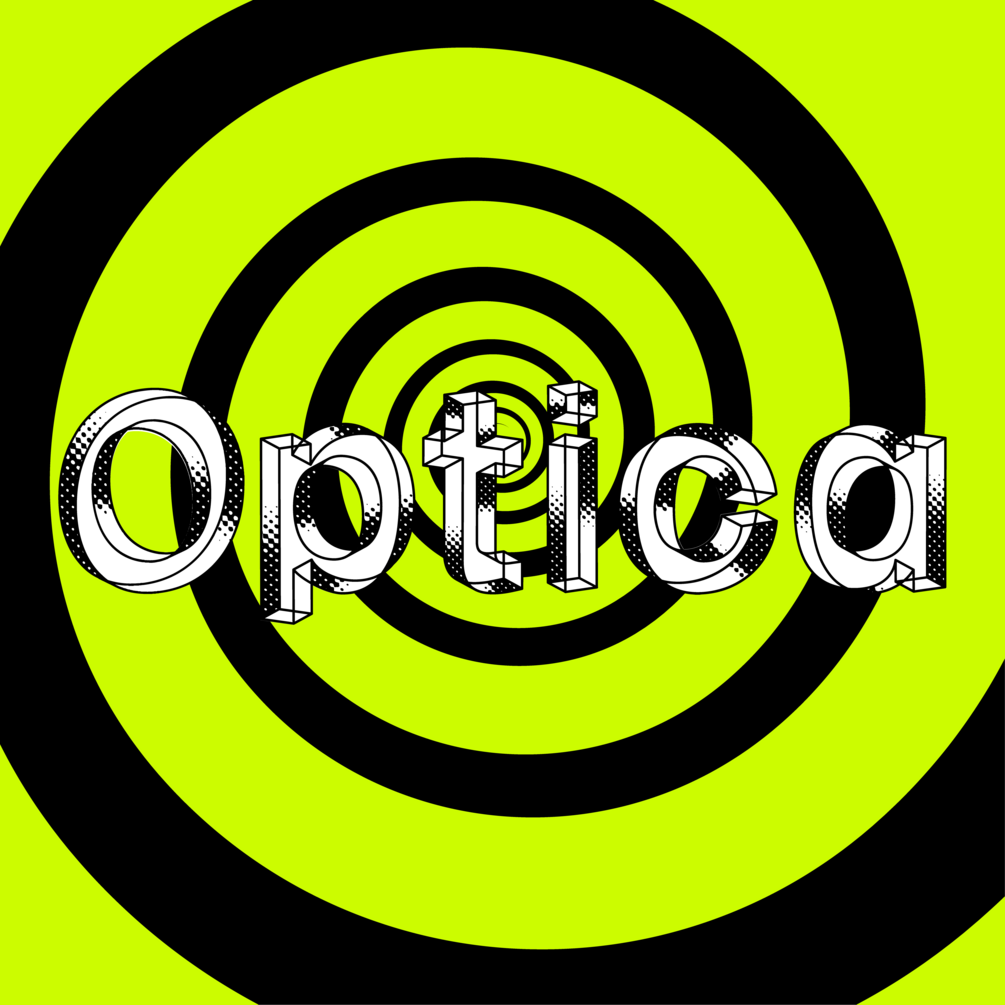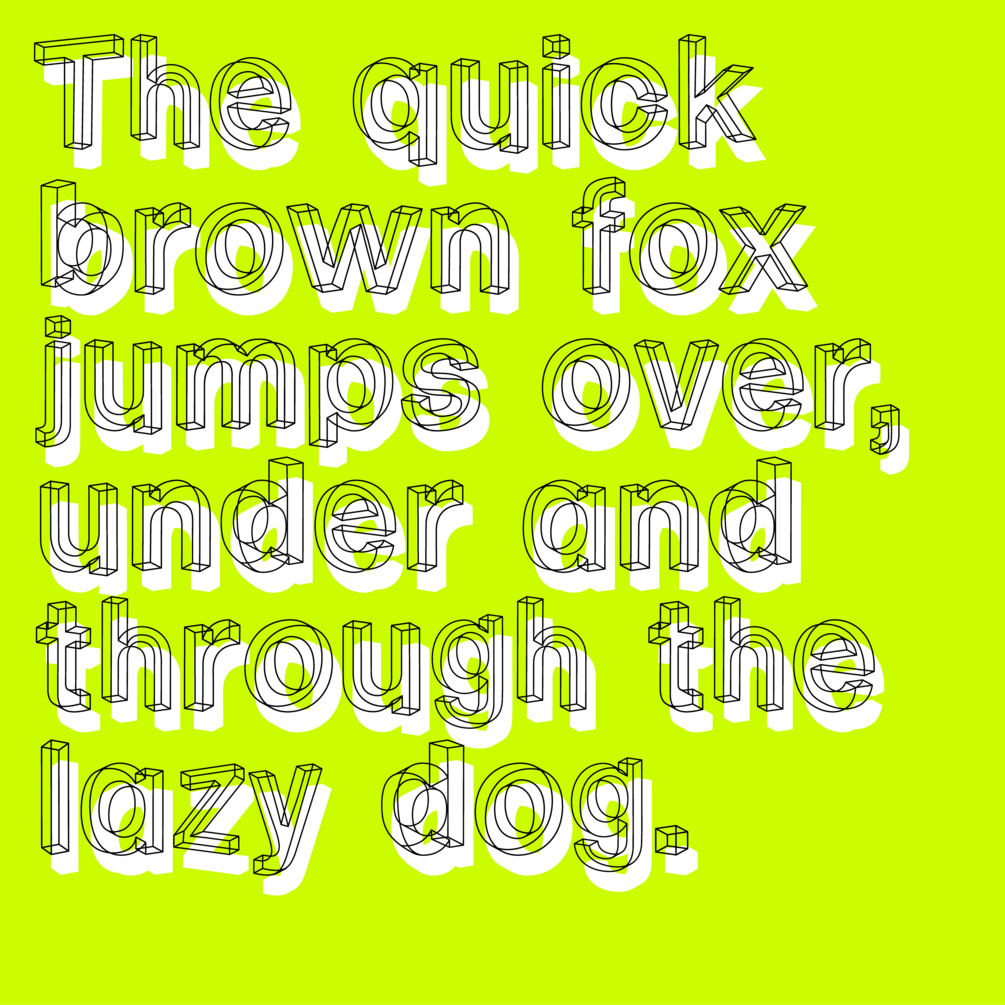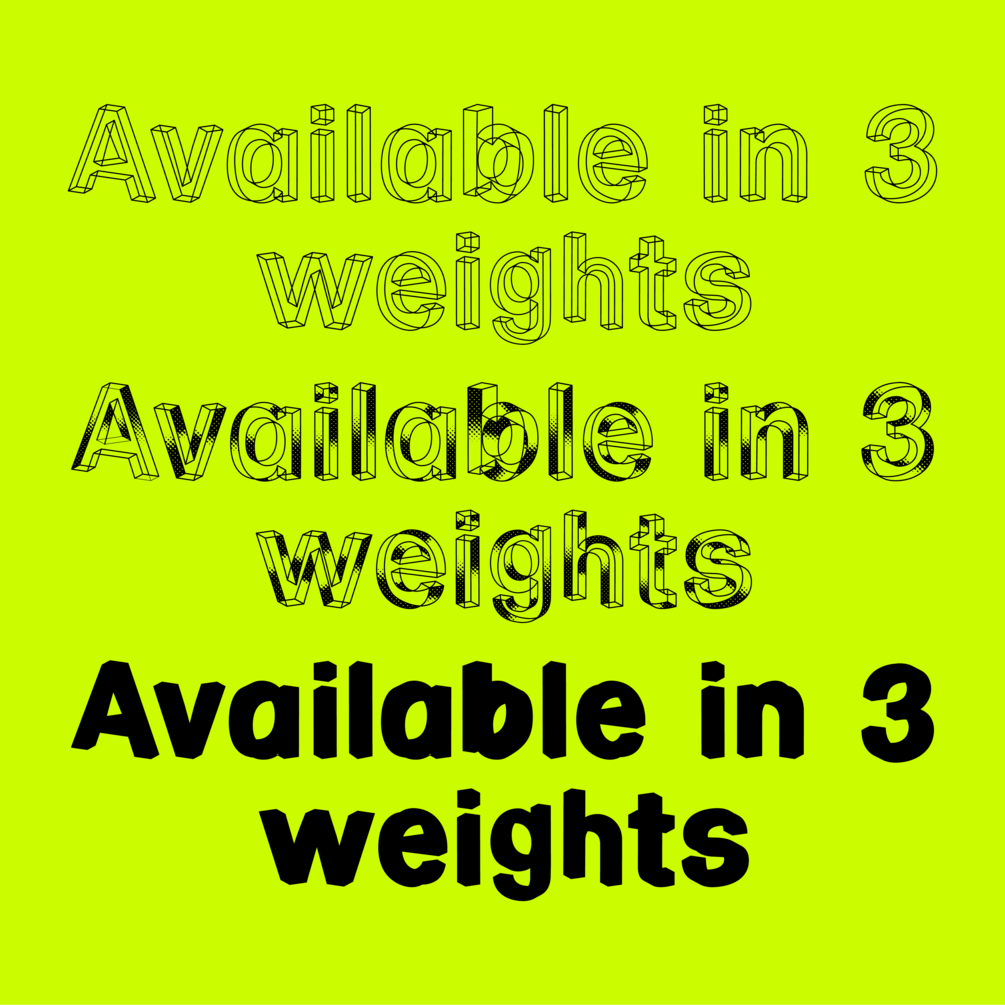
Optica
Optica is a typeface based on the Op art movement that was popularised in the 60's by artists such as Bridget Riley, Franco Grignani and Frank Stella. It's letterforms twist and turn to create a mind bending typeface that is designed to be used at large sizes.
The typeface comes in three weights; fill, shade and light. Each giving the letterforms a distinctive flavour and style. The typeface can also be layered on top of one another to create an even bolder look.